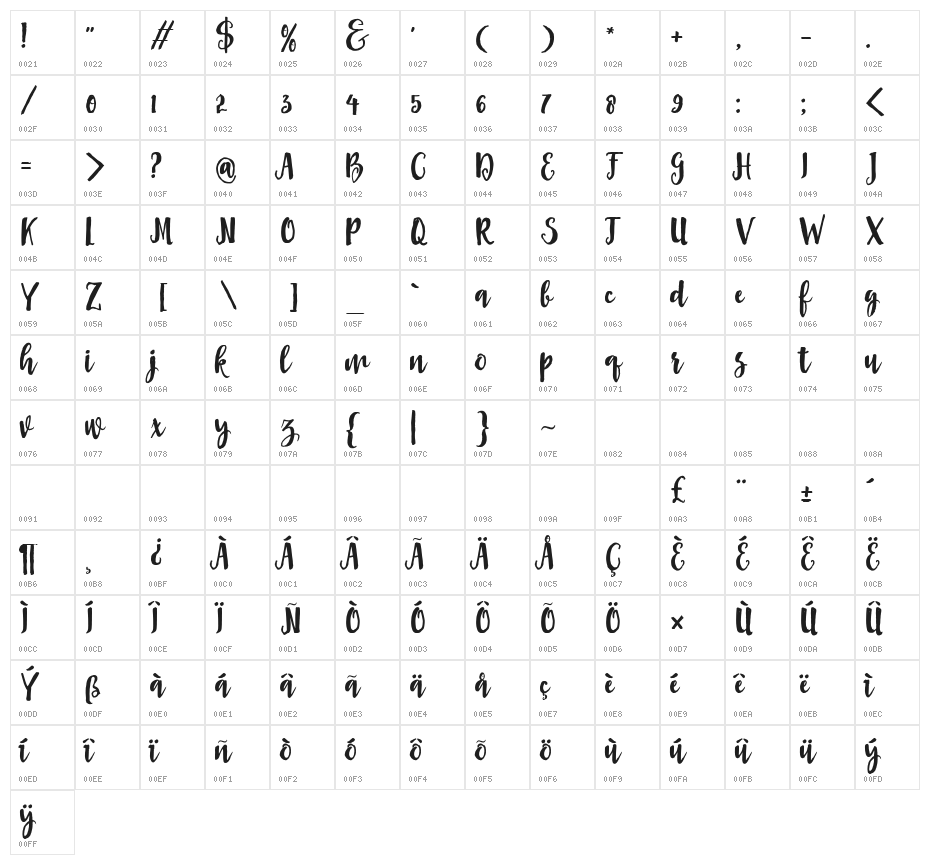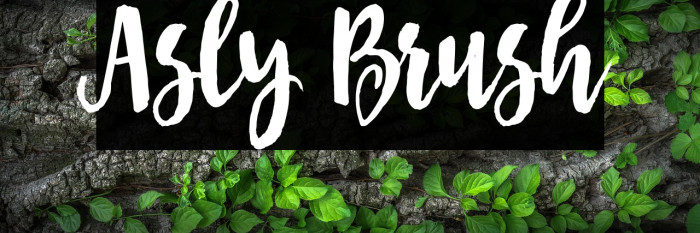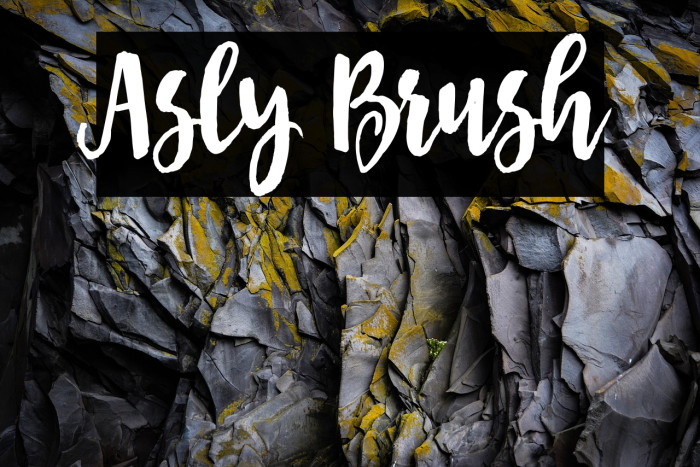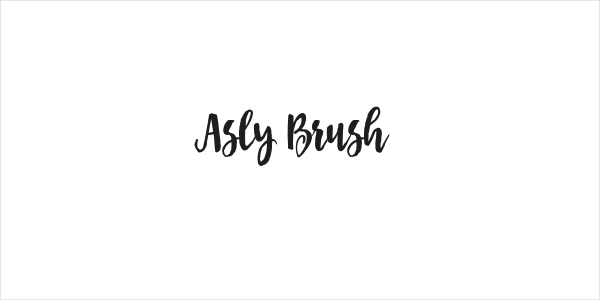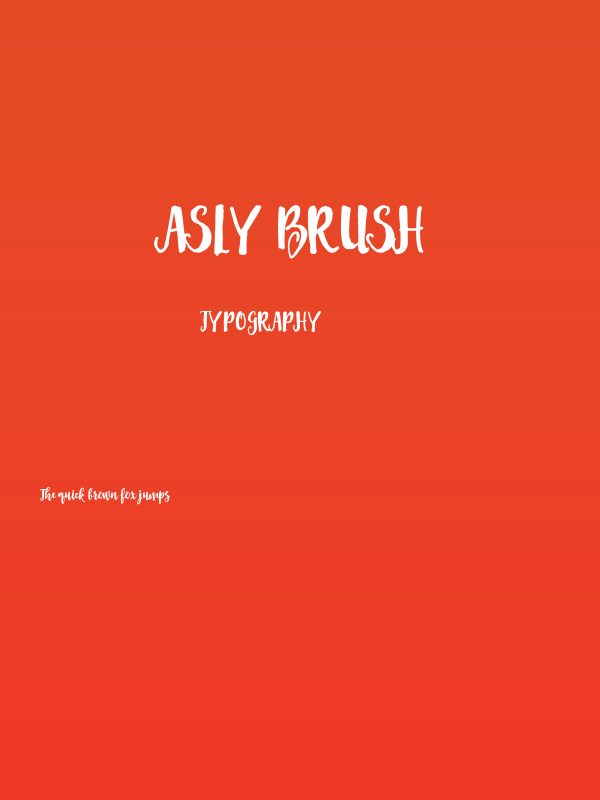
Asly Brush Font
Asly Brush Description
This font exudes a lively and dynamic brush script style, characterized by its bold and expressive strokes. The letters are crafted with a sense of fluidity and movement, capturing the essence of hand-painted calligraphy. Each character is distinct, with varying stroke widths that add a playful and artistic flair. The uppercase letters are bold and commanding, while the lowercase letters maintain a graceful and flowing appearance. The numerals and special characters are equally expressive, complementing the overall style with their unique forms. This font is perfect for projects that require a touch of creativity and personality.
| Proposed Projects | Ideal for branding, posters, invitations, and creative design projects that require a personal touch. |